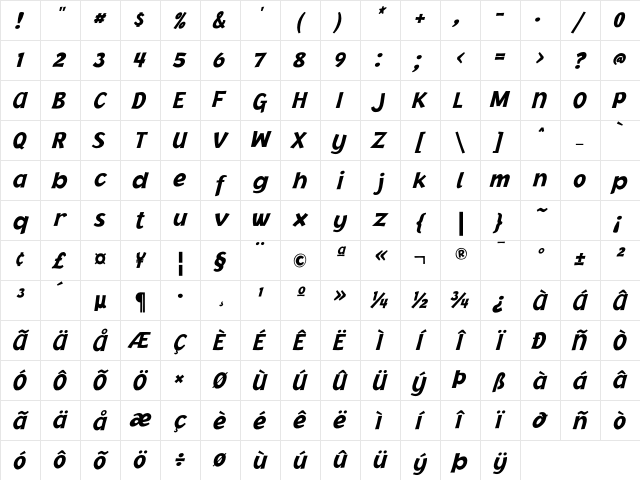
JacobyICG BlackItalic Free Font
JacobyICG BlackItalic
Style: BlackItalic
JacobyICG Family
JacobyICG BlackItalic
Design Context for JacobyICG
JacobyICG is a composed and adaptable typeface that performs quietly and consistently across a wide range of design contexts. The slanted form adds forward momentum and visual energy.
Pro Tip: Use JacobyICG for emphasis, pull quotes, and subheadings where its slanted energy can add rhythm to the layout.